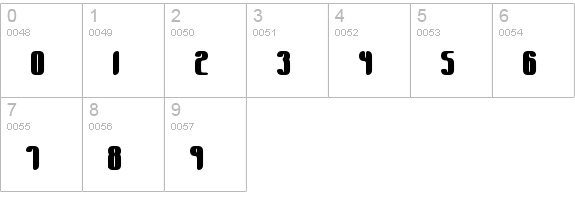
Wager Won BRK Font Details
Introducing Wager Won BRK, a captivating and versatile font designed to make a bold statement in any project. This typeface effortlessly combines elegance and readability, making it the perfect choice for both digital and print designs. Wager Won BRK boasts a unique and eye-catching design, with its intricate curves and sharp edges. Its bold and strong presence demands attention, ensuring that your message will be noticed and remembered. Whether you're designing a logo, creating a poster, or crafting a website, this font will add a touch of sophistication and professionalism to your work. What's even better is that Wager Won BRK is available for free download at FontsMarket.com. Yes, you heard it right - this exceptional font can be yours without any cost. Now you can elevate your designs without breaking the bank. So why wait? Take advantage of this amazing opportunity and unleash the full potential of your creativity with Wager Won BRK. With its wide range of characters and extensive language support, this font can be used in various design projects across different industries. Its versatility and adaptability make it suitable for everything from branding and advertising to editorial and packaging design. Get ready to make a bold statement with Wager Won BRK. Impress your audience with its impeccable style and impeccable legibility. Download this font for free at FontsMarket.com and unlock a world of design possibilities. Don't miss out on this fantastic opportunity to elevate your projects and stand out from the crowd. Start creating unforgettable designs with Wager Won BRK today.